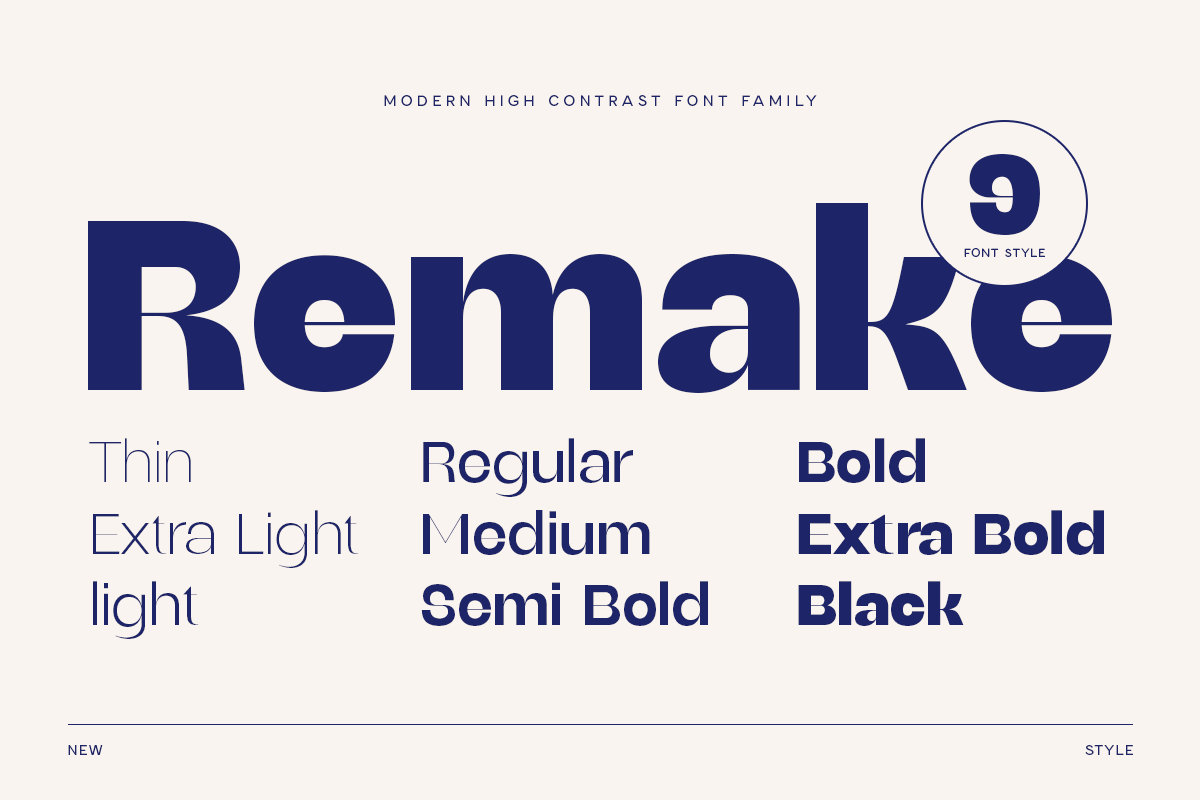
Remake - Modern High Contrast Font
Remake delivers sophisticated high-contrast typography perfect for luxury branding and modern design projects. This elegant sans serif display font family combines moderate contrast with exceptional legibility, making it ideal for branding projects, logos, social media posts, advertisements, product packaging, product designs, labels, photography watermarks, invitations, and stationery. The versatile character set allows you to create unique variations and shapes effortlessly by selecting from t...